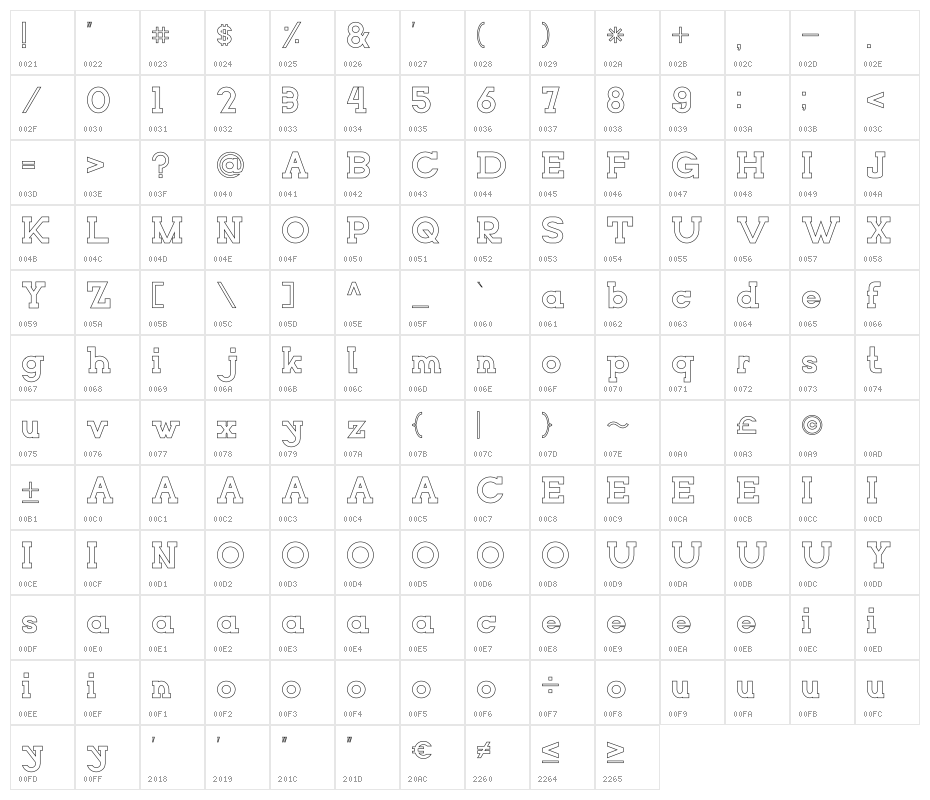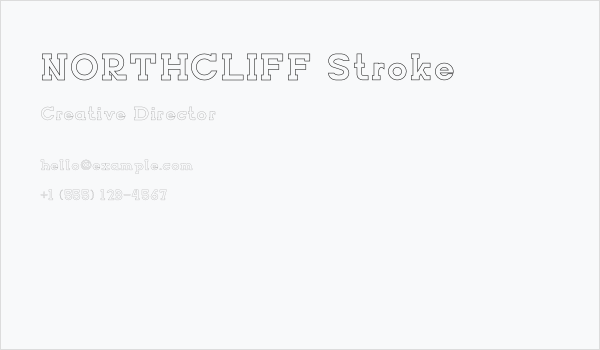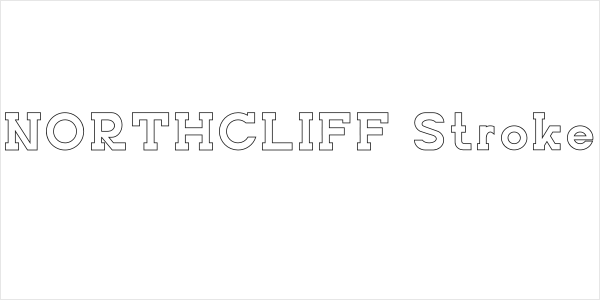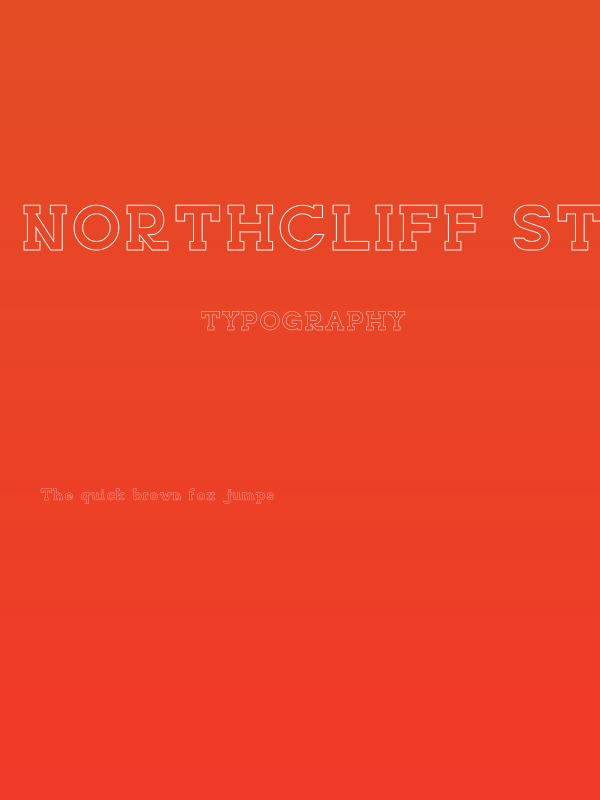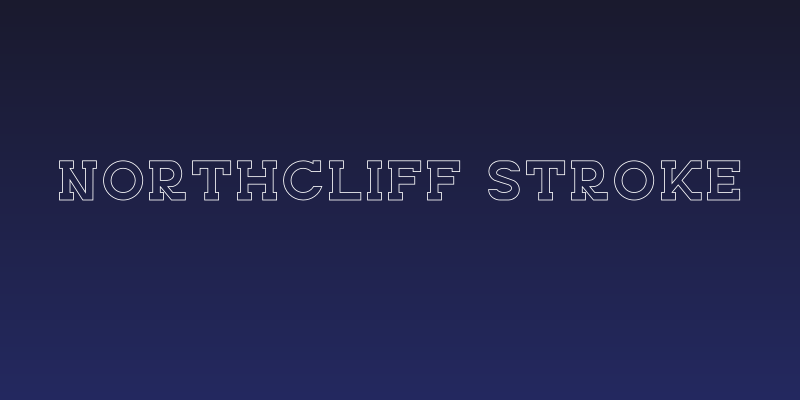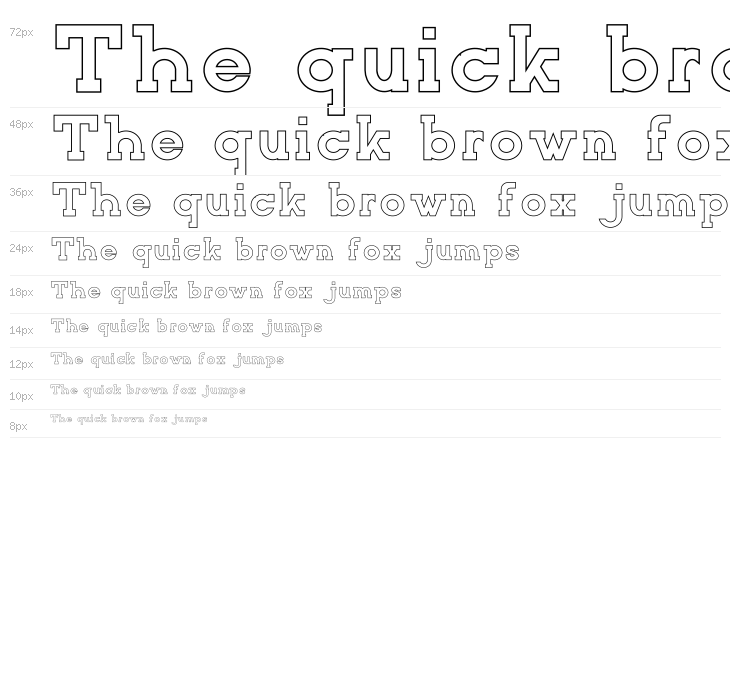
NORTHCLIFF Stroke Font
NORTHCLIFF Stroke Description
This font features a bold, outlined style with a geometric structure, giving it a modern and clean appearance. The uppercase and lowercase letters maintain a consistent stroke width, creating a uniform look across all characters. The numerals and special characters follow the same design principles, ensuring cohesion throughout. The font's open, airy design makes it suitable for various applications, offering a contemporary feel that is both eye-catching and versatile. Its clear, defined lines make it easily readable, while the outlined nature adds a unique touch that can enhance visual interest in design projects.